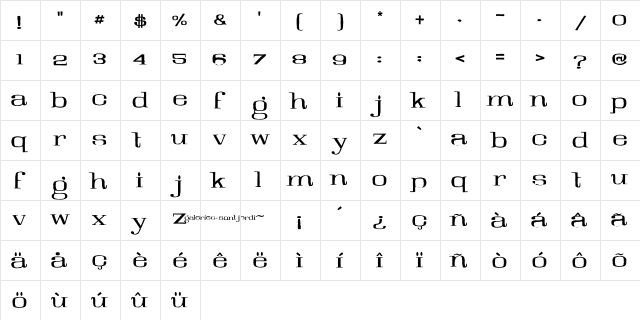
Galeries Regular
| Foundry | by Mario Arturo, Barcelona, Spain. Inspired on a type that appeared on a receipt from a store called Galeries Sant Jordi \(c. late 's\) in Pineda de Mar, Catalunya, Spain. Aug |
Design Context for Galeries Typeface
Galeries is a composed and adaptable typeface that performs quietly and consistently across a wide range of design contexts.